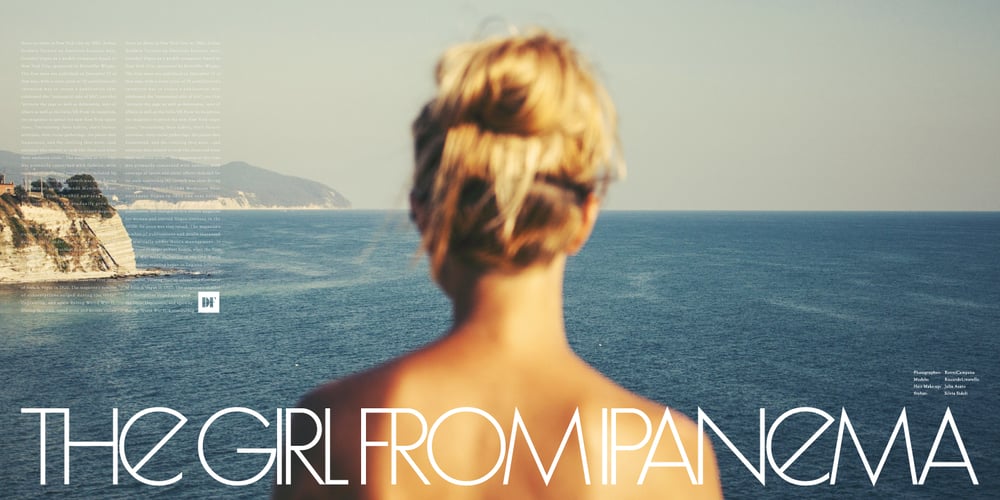
Sophi Sophi
Sophi Sophi font
Sophi Sophi Font Family was designed by Shin Oka and published by Daylight Fonts. Sophi Sophi contains 1 styles and family package options. This is a modern-day interpretation of the 1930s font.With a wide range of alternates, you can create Art Deco and Bauhaus style typography in one piece.People who see it will be fascinated by the stylish and feminine look of the font.